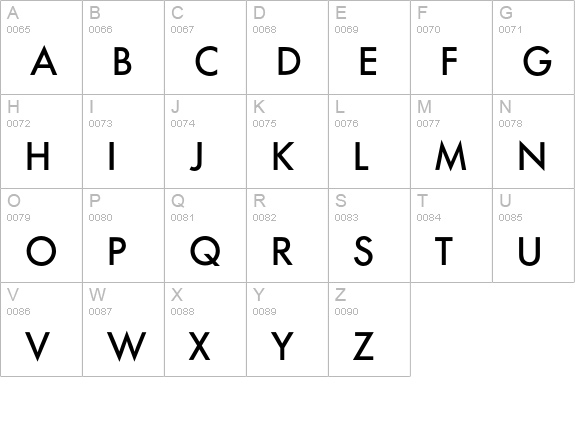
Futura BQ Medium is a balanced, medium-weight variant in the Futura typeface family \xE2\x80\x94 well suited to sub-headlines, navigation, and balanced editorial work.
Futura BQ Medium is a sleek and modern font that exudes sophistication and professionalism. Its perfect balance of geometric shapes and clean lines make it ideal for a wide range of design projects, from branding to editorial layouts. The medium weight of this font strikes a harmonious balance between boldness and elegance, making it versatile and easy to read across various mediums. What's even better is that Futura BQ Medium is available for free download at FontsMarket.com. This means you can easily access this high-quality font for your projects without any cost. Whether you're working on a website, poster, or logo design, Futura BQ Medium is sure to make a statement and elevate your design to the next level. Download it today and enhance your creative projects with this timeless and stylish typeface.